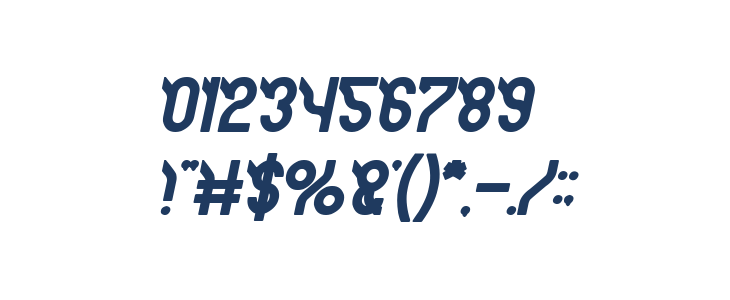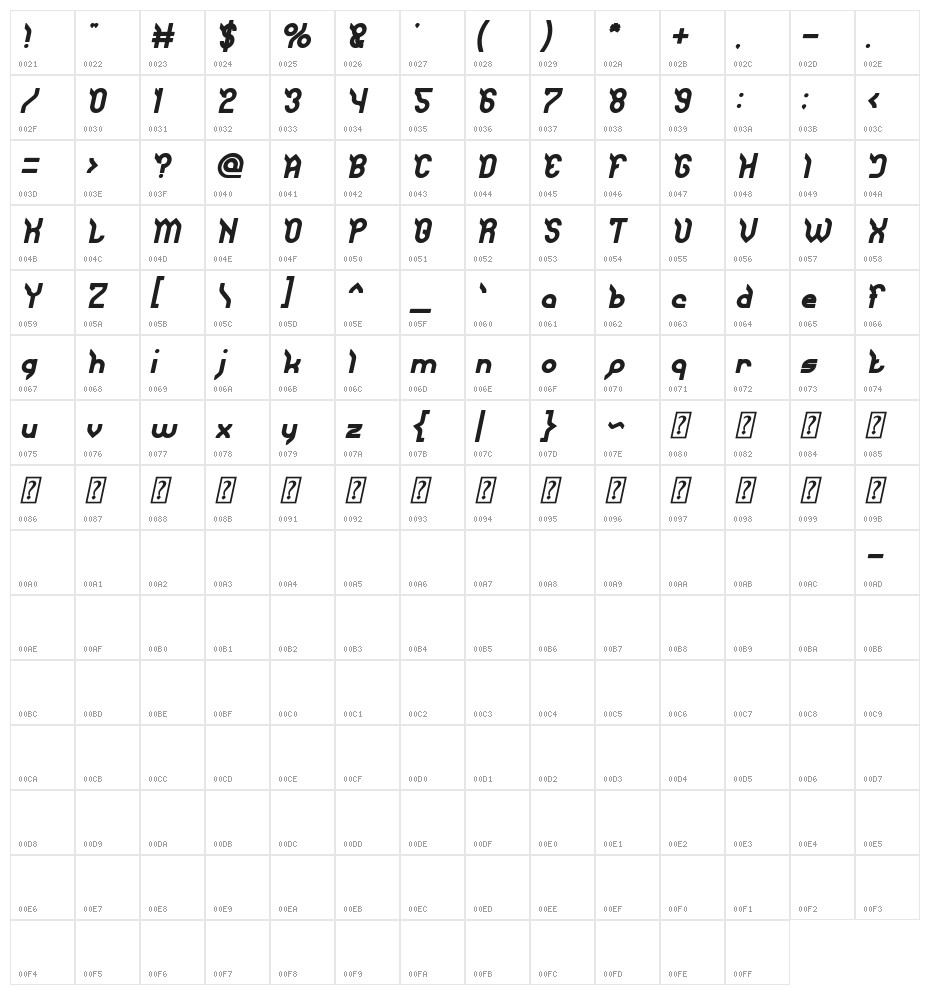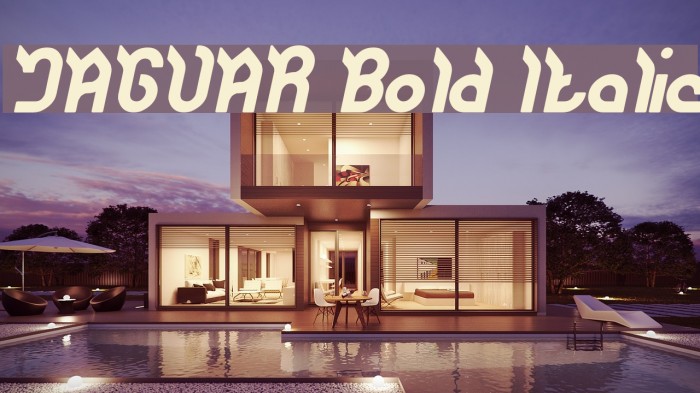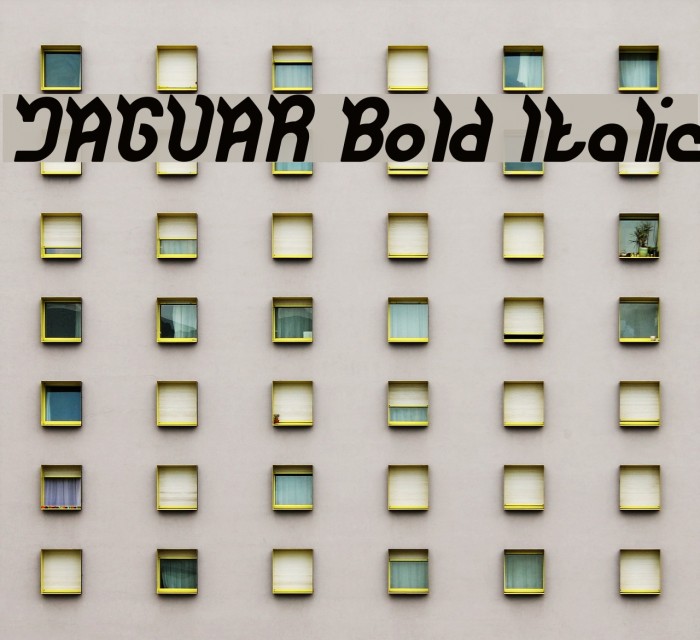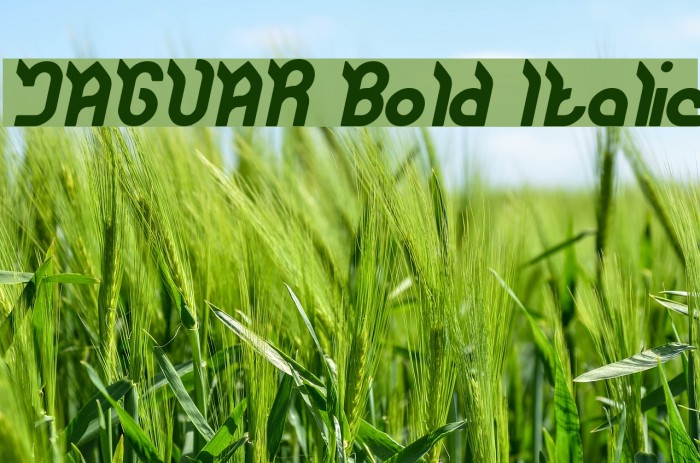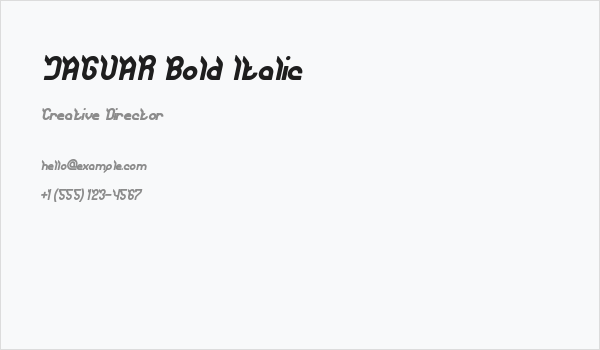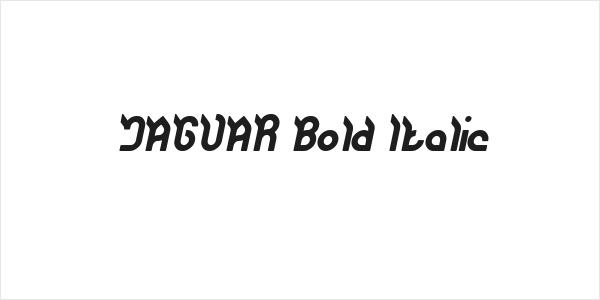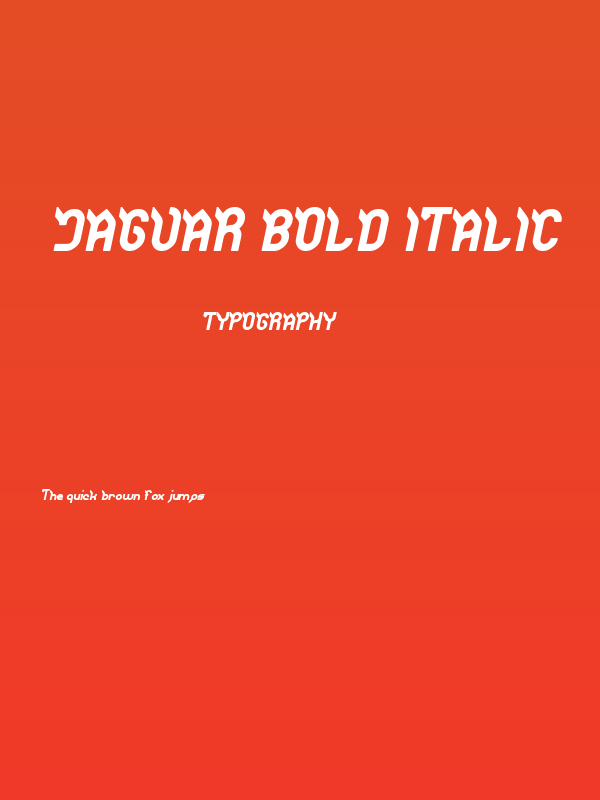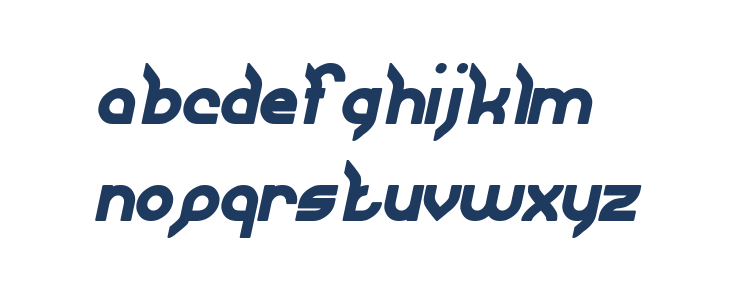
JAGUAR Bold Italic Font
JAGUAR Bold Italic Description
This font exhibits a bold and dynamic style with a strong italic slant, giving it a sense of movement and energy. The characters are thick and robust, with sharp angles and a slightly condensed form. This design choice enhances its boldness and makes it stand out prominently. The uppercase and lowercase letters maintain a consistent style, with the lowercase letters having a slightly more playful and rounded appearance. The numerals are equally bold, ensuring they are easily legible. Special characters are designed to match the overall aesthetic, maintaining the same bold and italicized characteristics. The font's unique style makes it suitable for attention-grabbing headlines and impactful designs.
| Proposed Projects | Ideal for sports branding, dynamic posters, and bold headlines. |